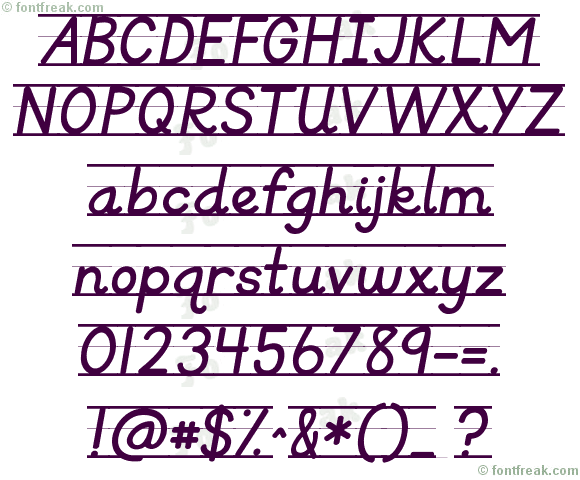
KG Primary Italics Lined by Kimberly Geswein is a charming script font that combines elegance with a playful touch. This font features a unique lined style that adds a layer of creativity to its overall appearance. The strokes are moderately thick with a consistent weight, making it easy to read while maintaining an artistic flair. The italicized design introduces a subtle slant that enhances the font's dynamic feel, while the lined elements bring a distinctive visual interest that sets it apart from standard scripts.
This font is particularly well-suited for a variety of creative projects. It shines in wedding invitations, where its elegance can beautifully complement romantic themes. Additionally, it works wonderfully for greeting cards, helping to convey heartfelt messages in a visually appealing manner. Small business owners can utilize KG Primary Italics Lined for branding materials, such as logos or product labels, adding a friendly and approachable vibe to their offerings. Content creators will find it useful for social media graphics, where the unique style can capture the attention of followers. It’s also a great choice for restaurant menus, providing a welcoming touch that aligns with a casual dining atmosphere.
What makes the KG Primary Italics Lined font stand out is its perfect balance between whimsy and sophistication. This font free download allows users to infuse their projects with a distinctive character, ensuring that any text stands out while maintaining readability and charm. Whether for personal or professional use, this font adds a delightful touch to any design.